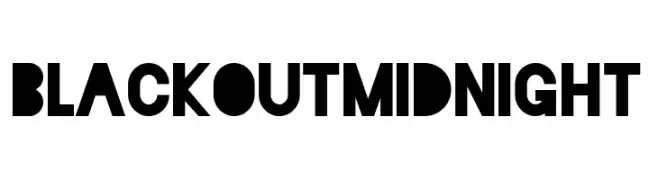
( Fonts by www.omniglot.com )
A bold, decorative font with intricate, curvaceous letterforms and a strong visual presence.
( Fonts by bob istheowl http://luc.devroye.org/bobistheowl.html )
Portrait-based decorative dingbat font with high-contrast illustrations.
( Fonts by Büro Sequenz )
A bold, textured font with a dynamic, brush-like appearance.
A refined serif font with high contrast and elegant details.
( Fonts by HungLan Design - www.hunglandesign.com )
An elegant script font with flowing, interconnected letters and ornate details.
( Fonts by Heather T. - oohlalaartsy.blogspot.com )
A modern, rounded font with a clean and approachable design.
A bold, distressed font with a rugged, textured appearance.
( Fonts by Albertine Nerevan - albertinenerevan.blogspot.com )
A whimsical, decorative font with intricate swirls and flourishes.
( Fonts by Maniackers Design - www.mksd.jp Commerciali Caratteri )
A playful, handwritten font with smooth, flowing strokes and a casual vibe.
( Fonts by Maniackers Design - www.mksd.jp Commerciali Caratteri )
A playful, bold handwritten font with a lively and friendly appearance.
( Fonts by Maniackers Design - www.mksd.jp Commerciali Caratteri )
A playful, bold font with rounded edges and a whimsical style.
( Fonts by Maniackers Design - www.mksd.jp Commerciali Caratteri )
A bold, playful handwritten font with thick, rounded strokes.
( Fonts by Maniackers Design - www.mksd.jp Commerciali Caratteri )
A playful, casual handwritten font with smooth curves and a friendly appearance.
( Fonts by Maniackers Design - www.mksd.jp Commerciali Caratteri )
Expressive, abstract handwritten script with decorative flair.
( Fonts by Maniackers Design - www.mksd.jp Commerciali Caratteri )
Hand-drawn doodle font with holiday and summer-themed icons.
( Fonts by Maniackers Design - www.mksd.jp Commerciali Caratteri )
Hand-drawn doodle font with playful food and object icons.
( Fonts by Maniackers Design - www.mksd.jp Commerciali Caratteri )
A playful, handwritten font with uneven strokes and a whimsical style.
( Fonts by Maniackers Design - www.mksd.jp Commerciali Caratteri )
A decorative and abstract script with bold, flowing symbols.
( holitter.wix.com/holitter )
An edgy, spiky font with a gothic, decorative style.
( Holitter Studios )
A bold, angular font with sharp edges and geometric elements.
( Fonts by Maniackers Design - www.mksd.jp Commerciali Caratteri )
A playful, bold font with rounded, bubbly characters and a whimsical style.